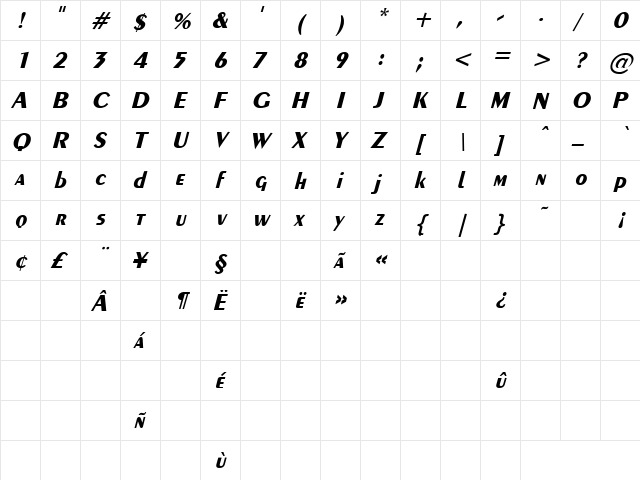
Physical 6 Italic
Design Context for Physical 6 Typeface
Physical 6 is a composed and adaptable typeface that performs quietly and consistently across a wide range of design contexts. Its italic angle brings a sense of urgency and motion to the letterforms.